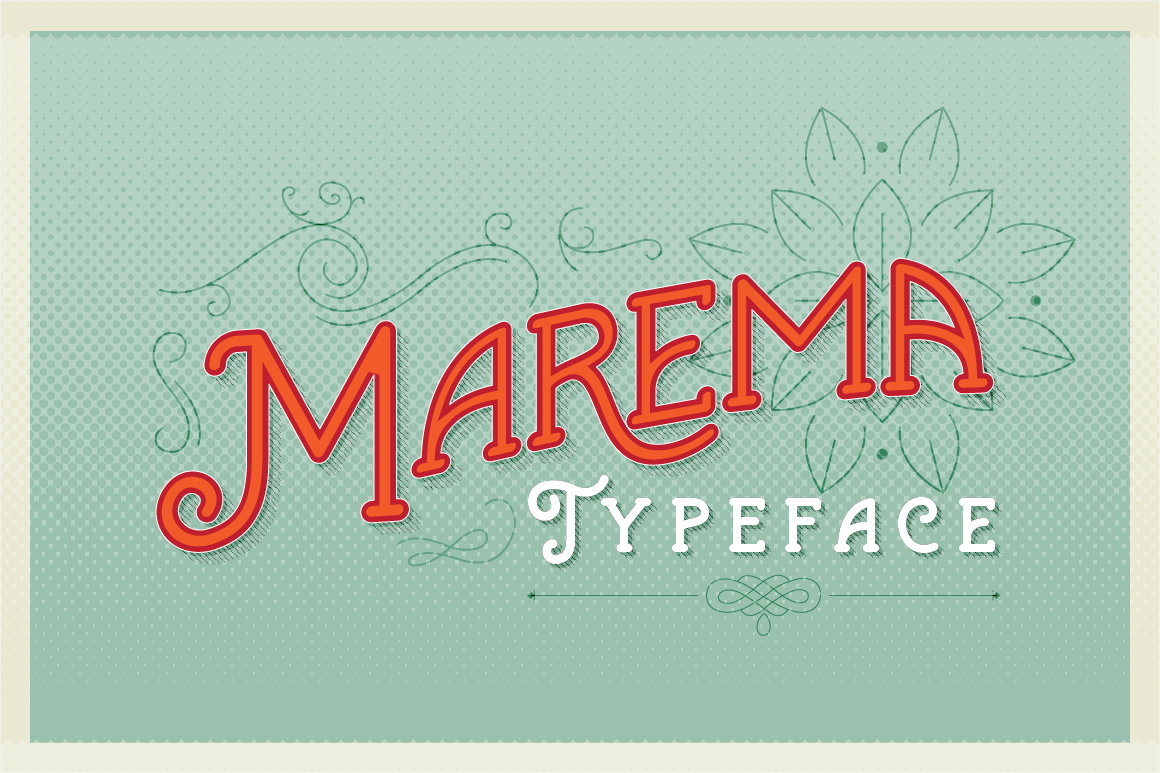
Marema Typeface
Just Launched Marema Typefaces !! Insipired by the modern vintage posters then I create this Marema Typefaces. it's rounded, it's Classic its so Vintage !!
Marema Typefaces is Opentype features like, Stylistic Alternates, Contexual Alternates and Ligatures. For example, Stylistic Alternates : You can choose different letter r in glyph mode. Contextual Alternates : Flipped a, when you type the first letter is 'a' the has curved in left, and if the letter 'a' in last, the curve automatically in right. Ligatures : the unique ways to redrawing two letters into one. just try type 'es','rs',tt etc. All of this just an example, just try it yourself and see what happens !!
This fonts is best use for the Posters, Headlines, Logos and with modern vintage design. in first Display I also use my other fonts Grandesa http://crtv.mk/rjVm